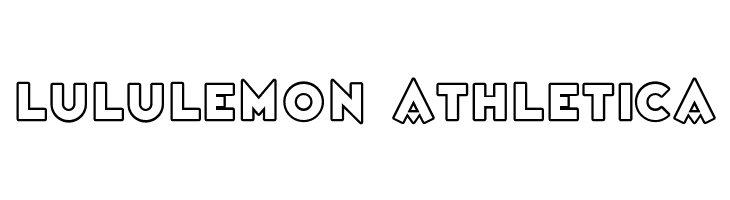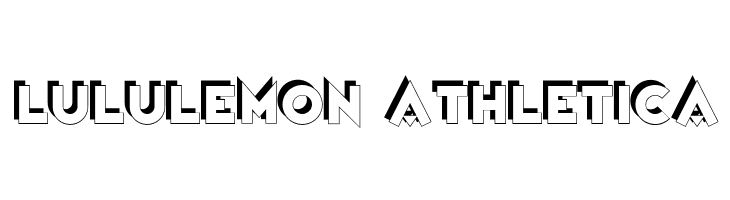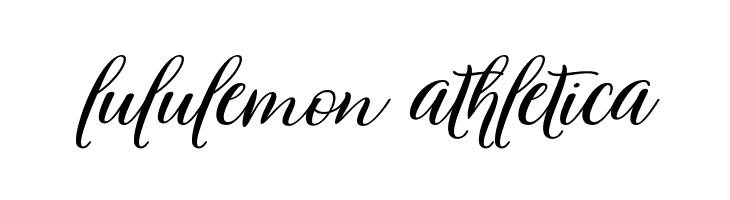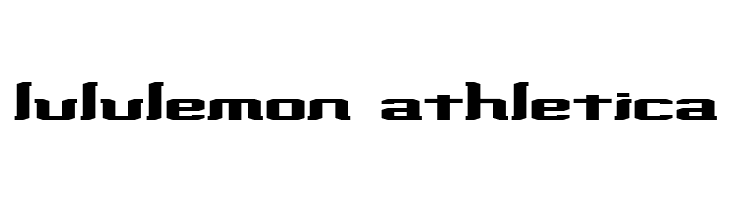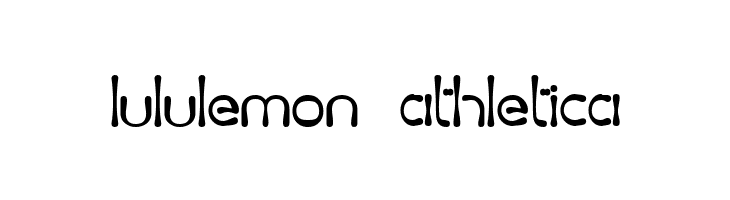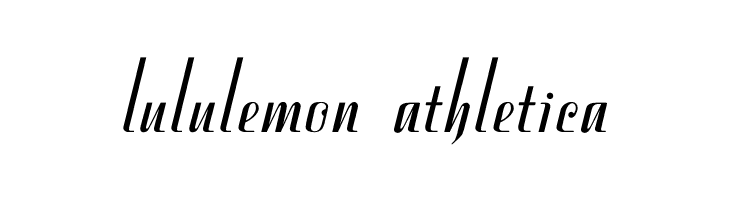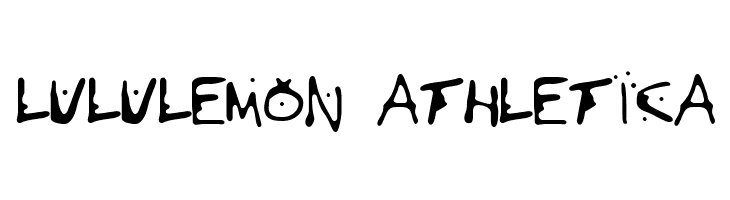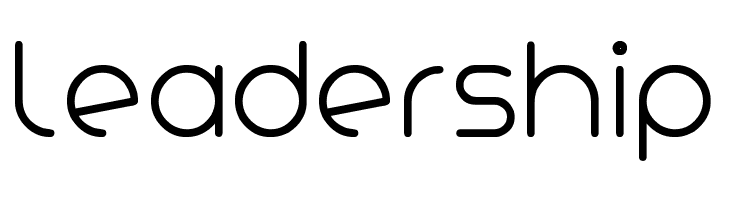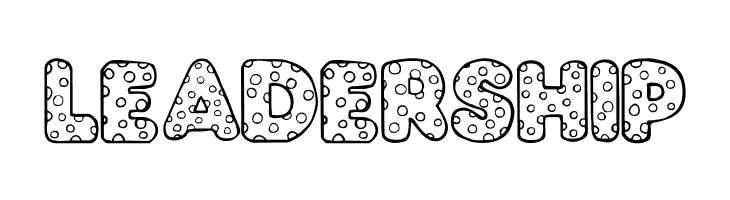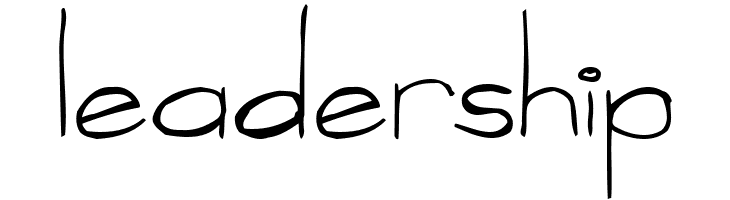
A clean, rounded typeface with a friendly and modern aesthetic.
A modern, rounded sans-serif font with a friendly and approachable style.
A modern, rounded font with clean lines and a friendly appearance.
An elegant script font with flowing cursive style and intricate swashes.
A playful and elegant script font with dynamic contrast and decorative flair.
An elegant, cursive font with a sophisticated, handwritten style.
A modern, minimalist font with rounded edges and geometric structure.
A playful, hand-drawn font with irregular, organic shapes and varying stroke thickness.
An elegant script font with flowing curves and sharp edges, perfect for refined designs.
A bold, playful font with a retro halftone texture.
A playful and decorative font with unique, artistic characters.
An artistic collection of abstract and cubist-inspired symbols and illustrations.
A tall, narrow font with a modern, geometric style.
A tall, narrow font with a modern and sleek design.
A tall, narrow font with a sleek, modern design.
A bold, geometric font with sharp edges and high contrast.
A bold, geometric font with strong, angular lines ideal for modern designs.
A bold, three-dimensional font with geometric lines and a shadow effect.
A bold, geometric, and three-dimensional decorative font.
A bold, angular font with a geometric, art deco-inspired style.
A bold, angular font with a playful, retro style.
A bold, geometric font with a three-dimensional layered outline effect.
A bold, geometric font with a three-dimensional outline effect.
A bold, geometric font with a playful, outlined style.
A bold, geometric font with an outlined, three-dimensional style.
A bold, decorative font with a playful 3D effect and geometric design.
A bold, playful font with a 3D effect, perfect for circus-themed designs.
A bold, geometric font with strong outlines and a modern, dynamic style.
A bold, geometric font with a three-dimensional outlined style.